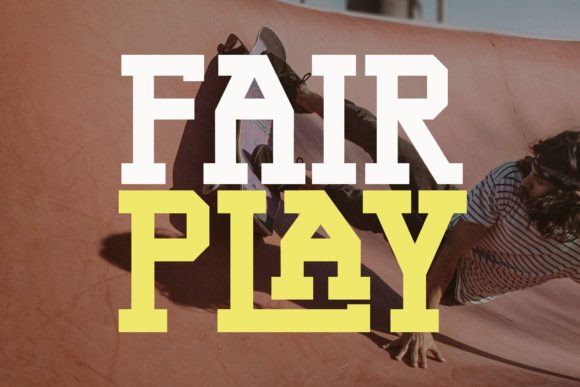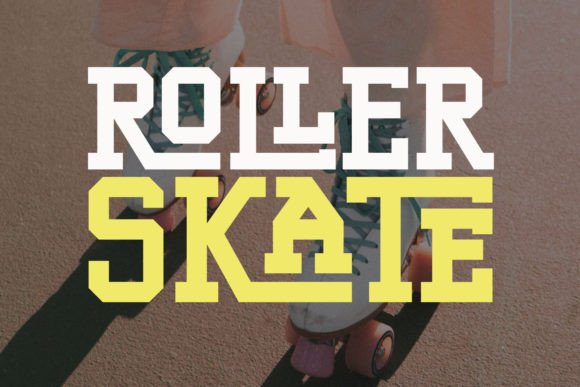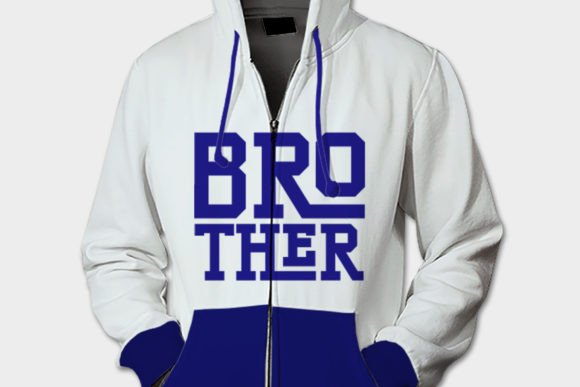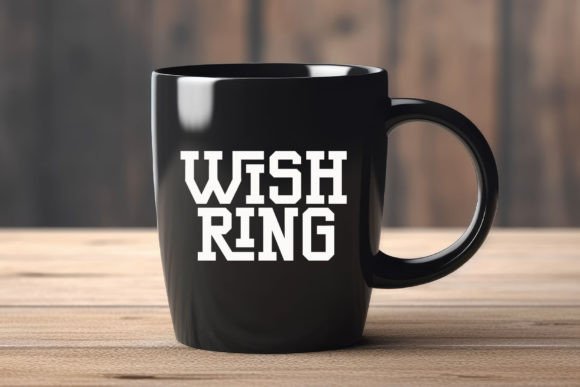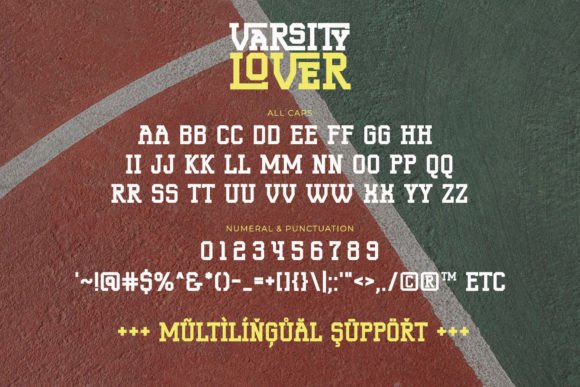
Varsity Lover Font
Varsity Lover is an all-caps slab serif font. This font is a sport-theme font with some ligatures. It radiates bold, cool, and modern
Varsity Lover is the perfect font for sports theme designs, such as jerseys, baseball, softball, soccer, posters, jackets, hoodies, and many more.